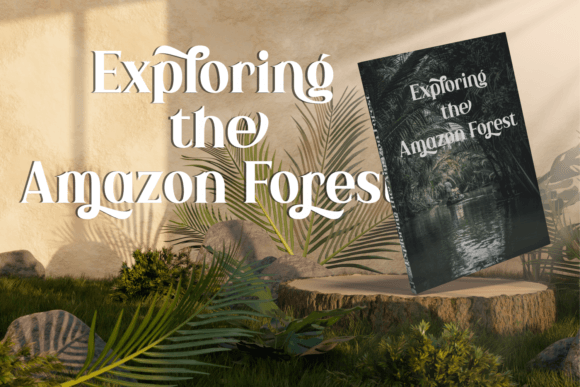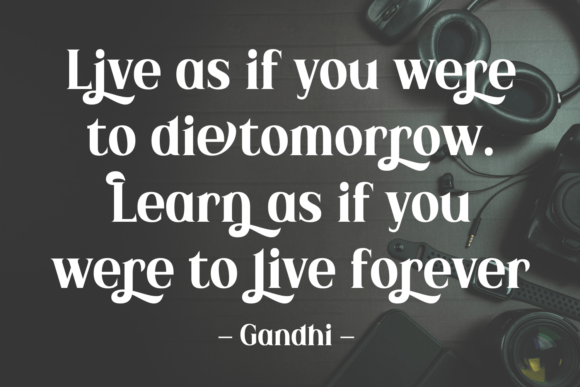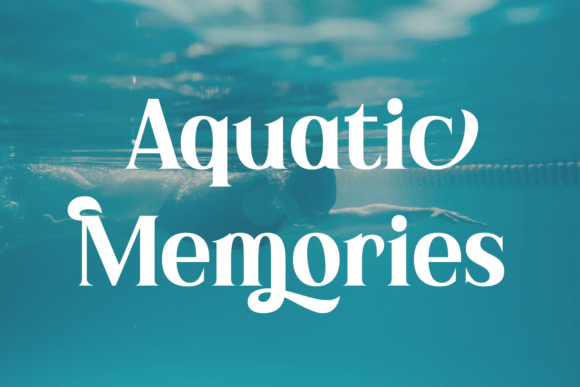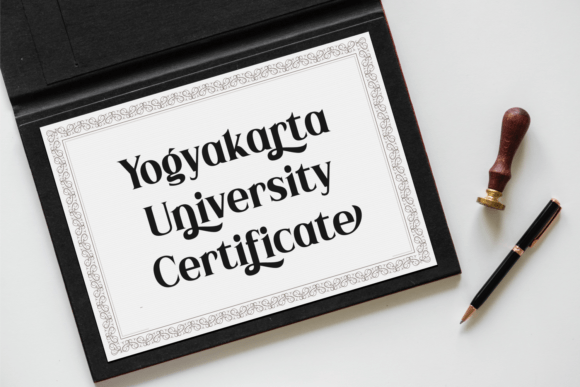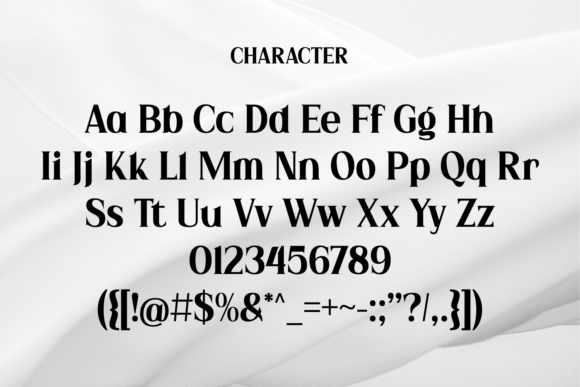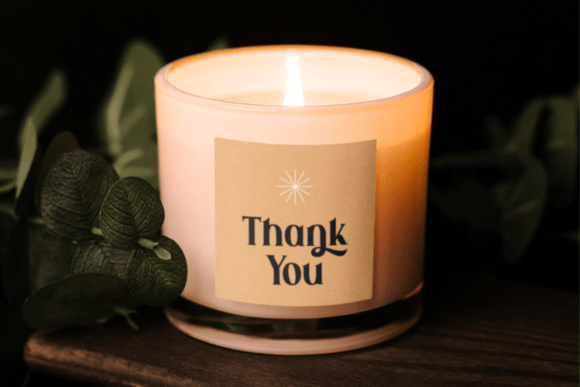
Chasing the Dream Font: Elevate Your Designs with Sophisticated Elegance
Are you searching for a font that embodies the perfect blend of classic sophistication and modern style? Look no further than the Chasing the Dream Font. This stunning serif font, with a modern twist, is designed to elevate your designs and add a unique touch to your creations. Whether you’re working on a classic wedding project, a modern photography portfolio, or a branding revamp, this font integrates seamlessly, providing a professional and authentic feel.
A Versatile Font for Diverse Design Needs
The Chasing the Dream Font family is available in regular and italic styles, making it a versatile asset in your font repertoire. Its smooth visual texturing and professional appeal lend a minimal yet classy sophistication that can make your social media content, university projects, and more stand out. The font’s elegant design makes it perfect for a wide range of applications, from luxury branding to everyday design projects.
Retro Charm Meets Contemporary Sleekness
Drawing inspiration from the groovy 60s and chic 70s, the Chasing the Dream Font flawlessly combines retro charm with contemporary sleekness. The result is a font that is both nostalgic and modern, making it perfect for designers and crafters looking to add a touch of vintage flair to their work. The font’s unique blend of classic and modern elements ensures that your designs will stand out in a crowded digital landscape.
Beyond Style: A Multilingual Marvel
But the Chasing the Dream Font is more than just a stylish addition to your design toolkit. It’s also a multilingual marvel, breaking language barriers and expanding the realms of communication. With its extensive language support, you can create designs that reach a global audience, making it perfect for international branding, marketing, and design projects.
Make a Statement with the Bold Variant
In addition to its elegant regular and italic styles, the Chasing the Dream Font also comes with a bold variant, perfect for making impactful statements. Whether you’re looking to draw attention to a key message or simply want to add some visual interest to your design, the bold variant is sure to deliver.
Elevate Your Design Expression
The Chasing the Dream Font is more than just a font – it’s a design solution. Its sophisticated elegance and modern style make it perfect for designers and crafters looking to elevate their design expression. Whether you’re working on a personal project or a client brief, this font is sure to help you create stunning designs that exceed expectations.
The Chasing the Dream Font is a must-have for designers and crafters looking to add a touch of sophistication and elegance to their work. Its versatility, style, and multilingual support make it perfect for a wide range of design applications, from branding and marketing to social media and university projects.
Key Features of the Chasing the Dream Font
- Sophisticated serif style with a modern twist
- Available in regular and italic styles
- Bold variant for impactful statements
- Multilingual support for global communication
- Smooth visual texturing and professional appeal
- Perfect for branding, marketing, social media, and university projects